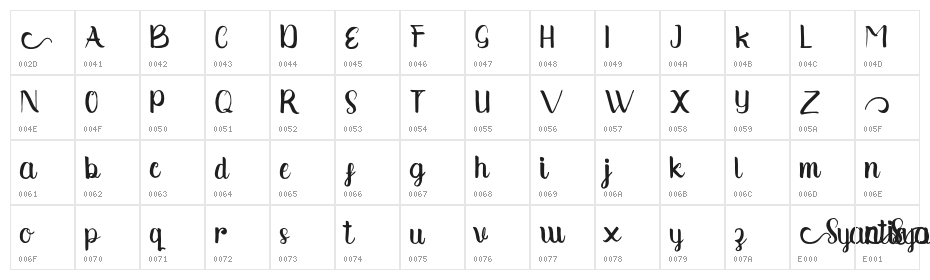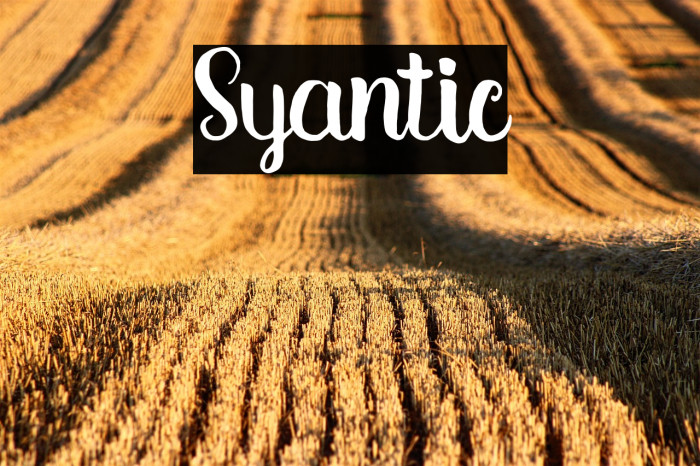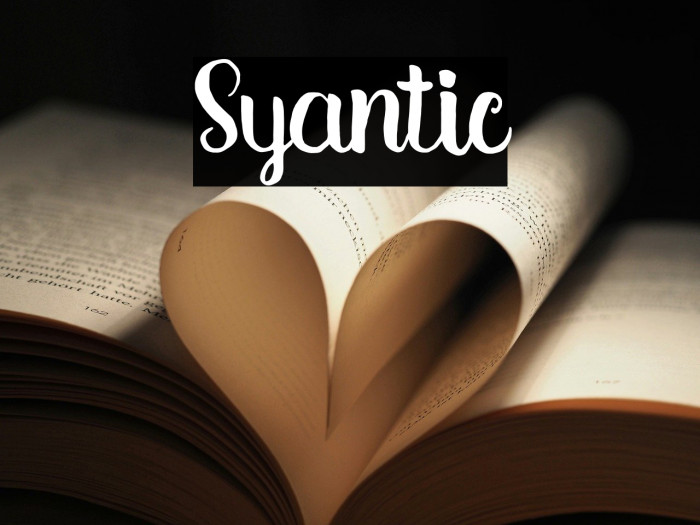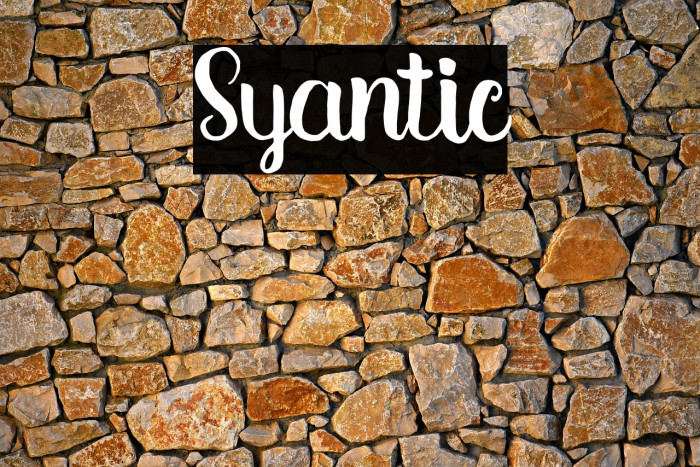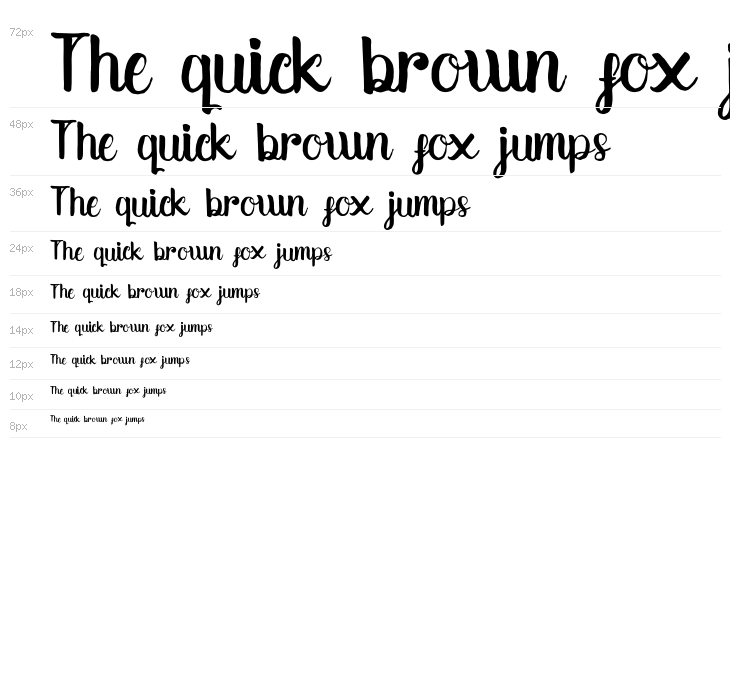
Syantic Font
Syantic Description
This font exhibits a playful and artistic style, characterized by its flowing, cursive-like strokes and dynamic letterforms. The uppercase letters are bold and expressive, with a slight slant that adds a sense of movement. The lowercase letters maintain a consistent style, with rounded edges and a whimsical flair. The font's unique personality is further enhanced by its irregular baseline, giving it a hand-drawn appearance. It's perfect for projects that require a personal touch or a creative, informal vibe.
| Proposed Projects | Ideal for greeting cards, invitations, creative branding, and artistic posters. |